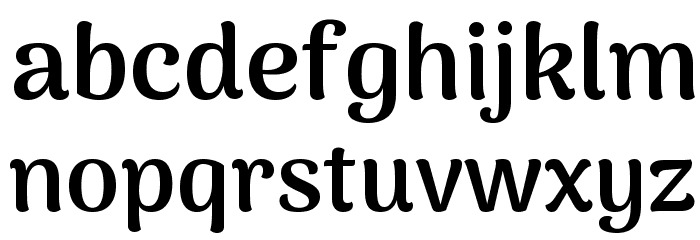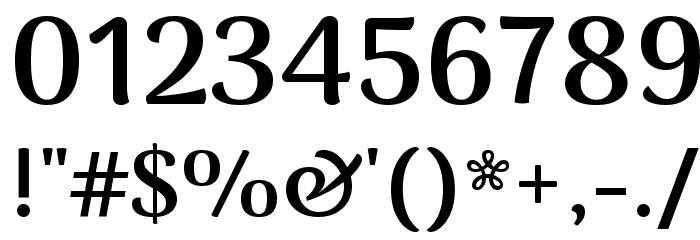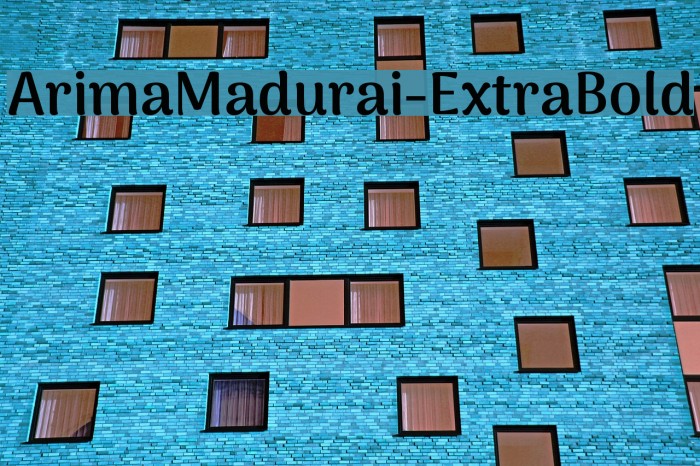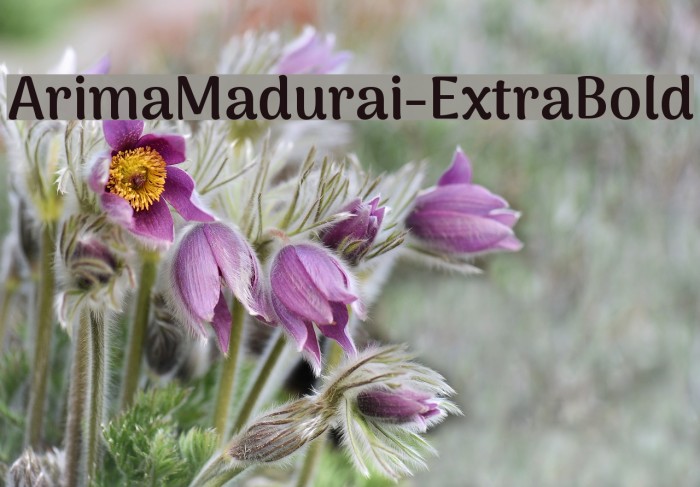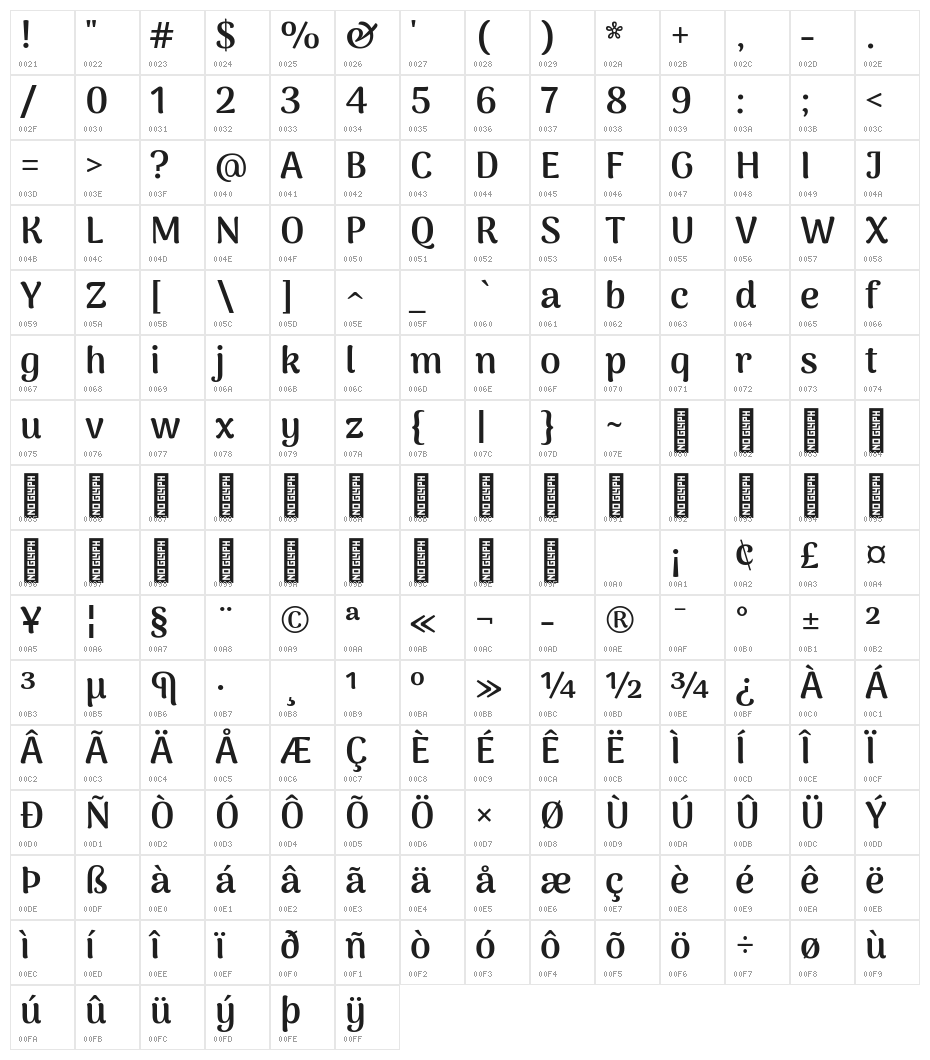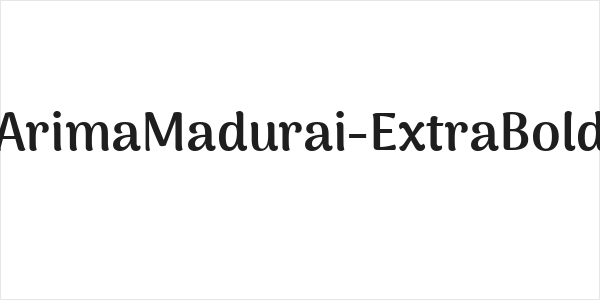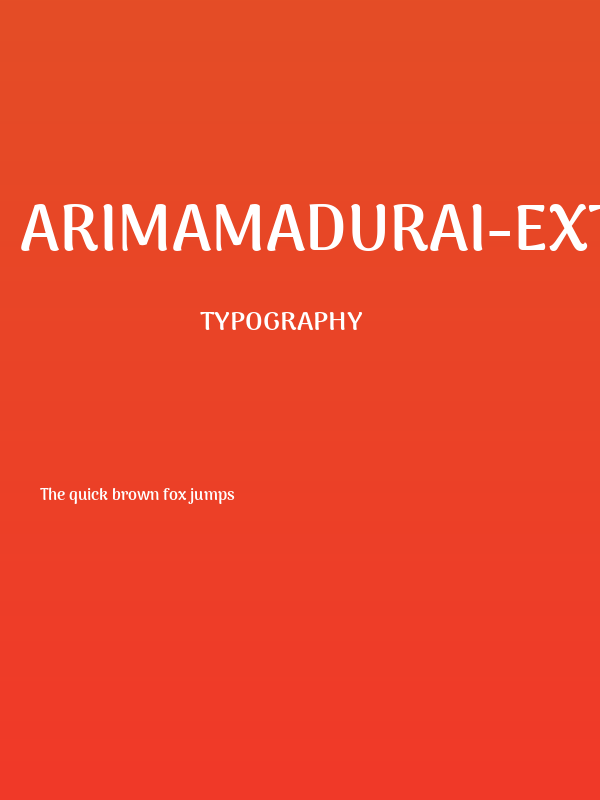
ArimaMadurai-ExtraBold Font
This font features a bold and rounded style with a playful yet sophisticated appearance. The uppercase letters are slightly taller than average, giving a sense of prominence and authority. The lowercase letters maintain a consistent roundness, contributing to a friendly and approachable feel. The numerals are clear and easy to read, with a uniform thickness that matches the overall boldness of the font. Special characters are well-integrated, maintaining the same visual weight and style as the alphanumeric characters. This font is versatile, suitable for both digital and print media, and can effectively convey messages with clarity and impact.
A bold, rounded font with a playful yet sophisticated style.
- Proposed Projects: Ideal for branding, headlines, posters, and packaging design.